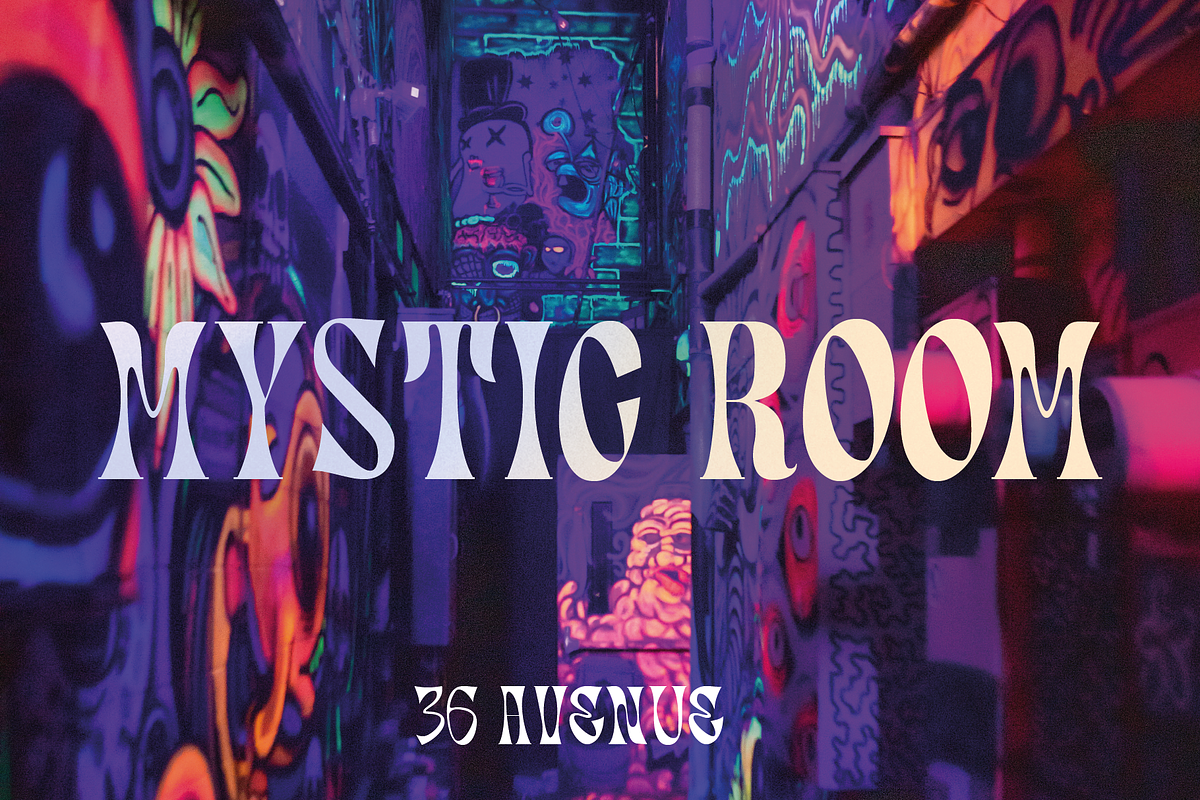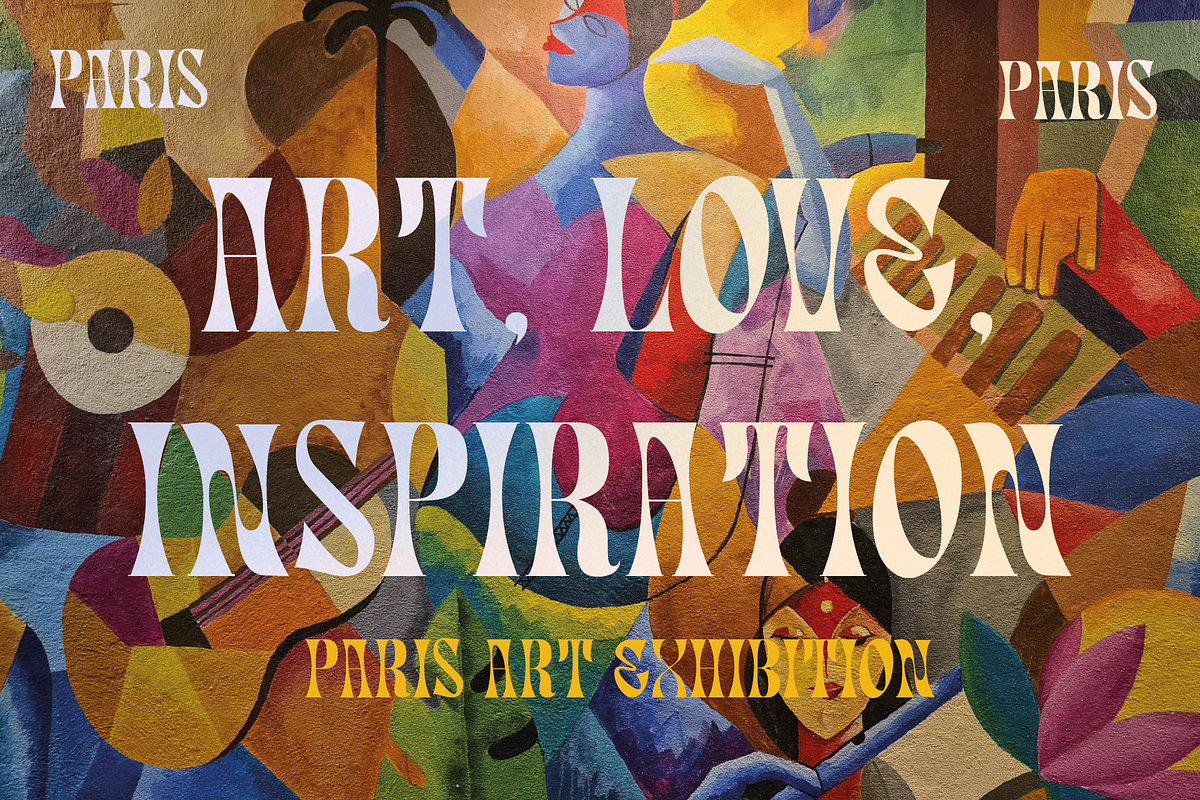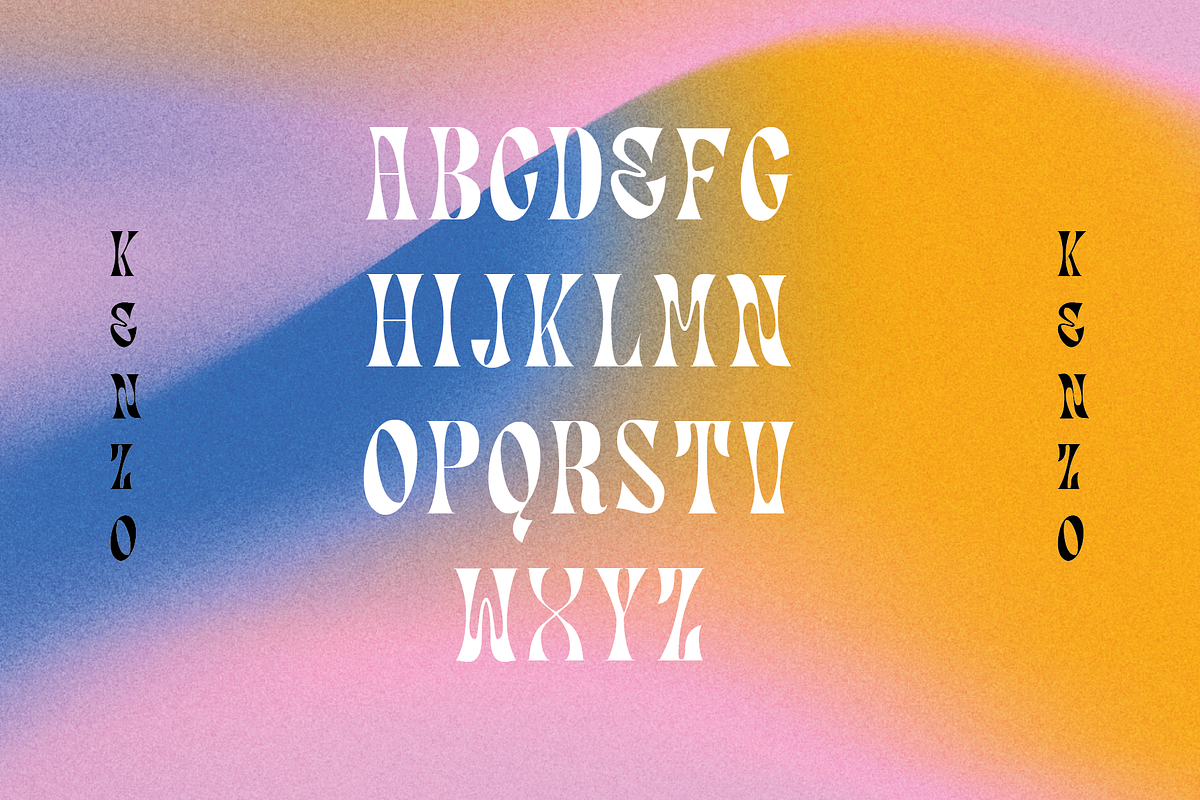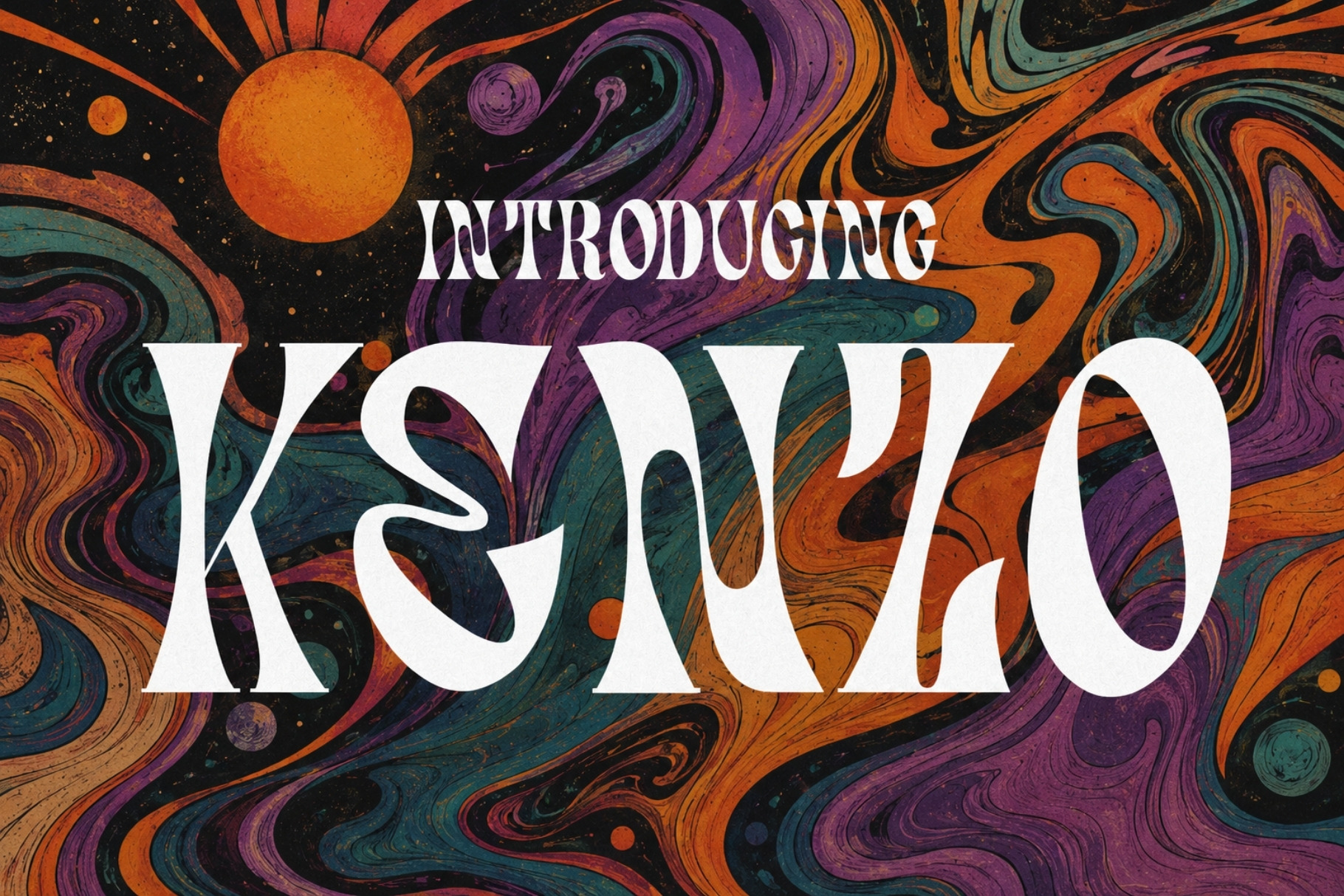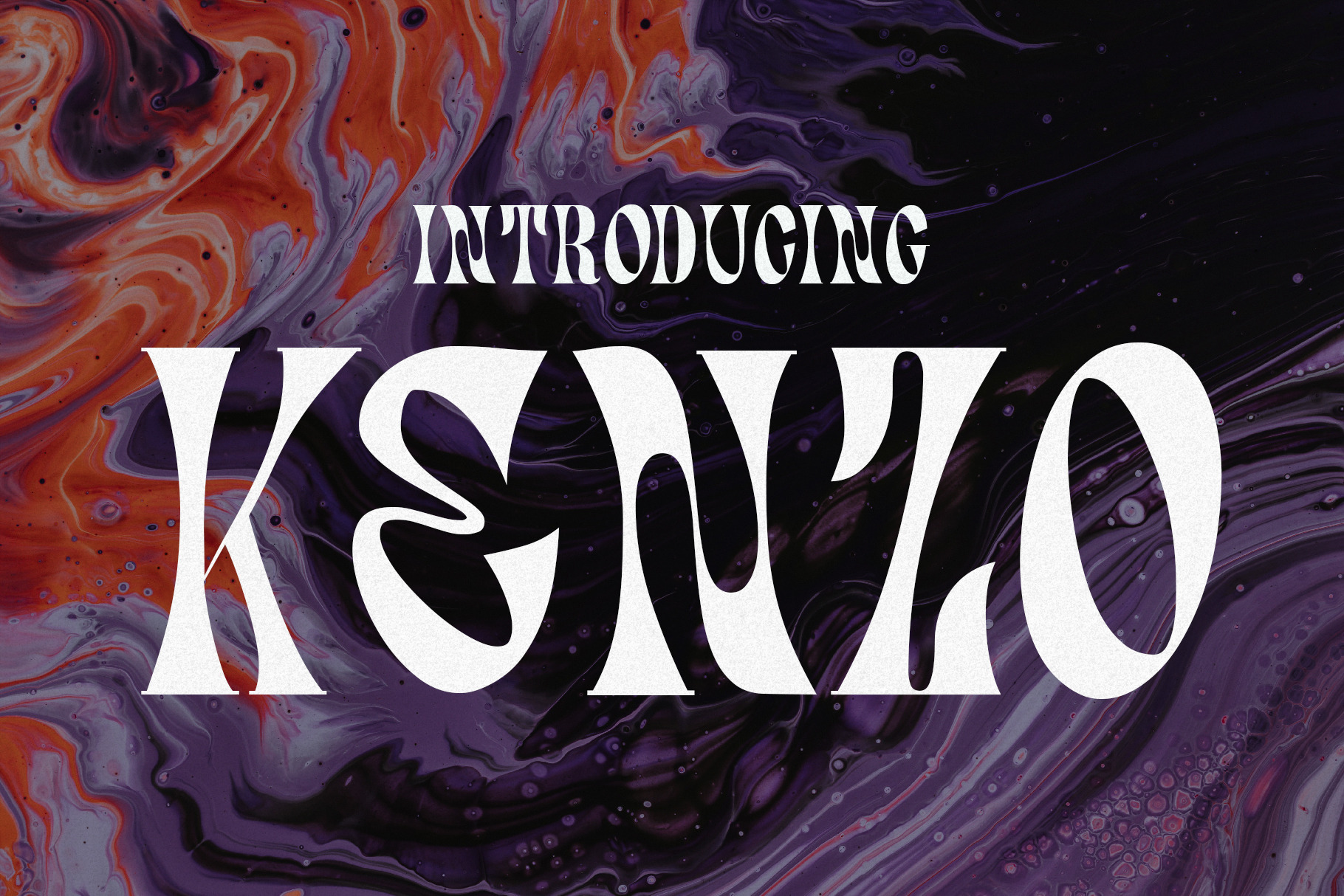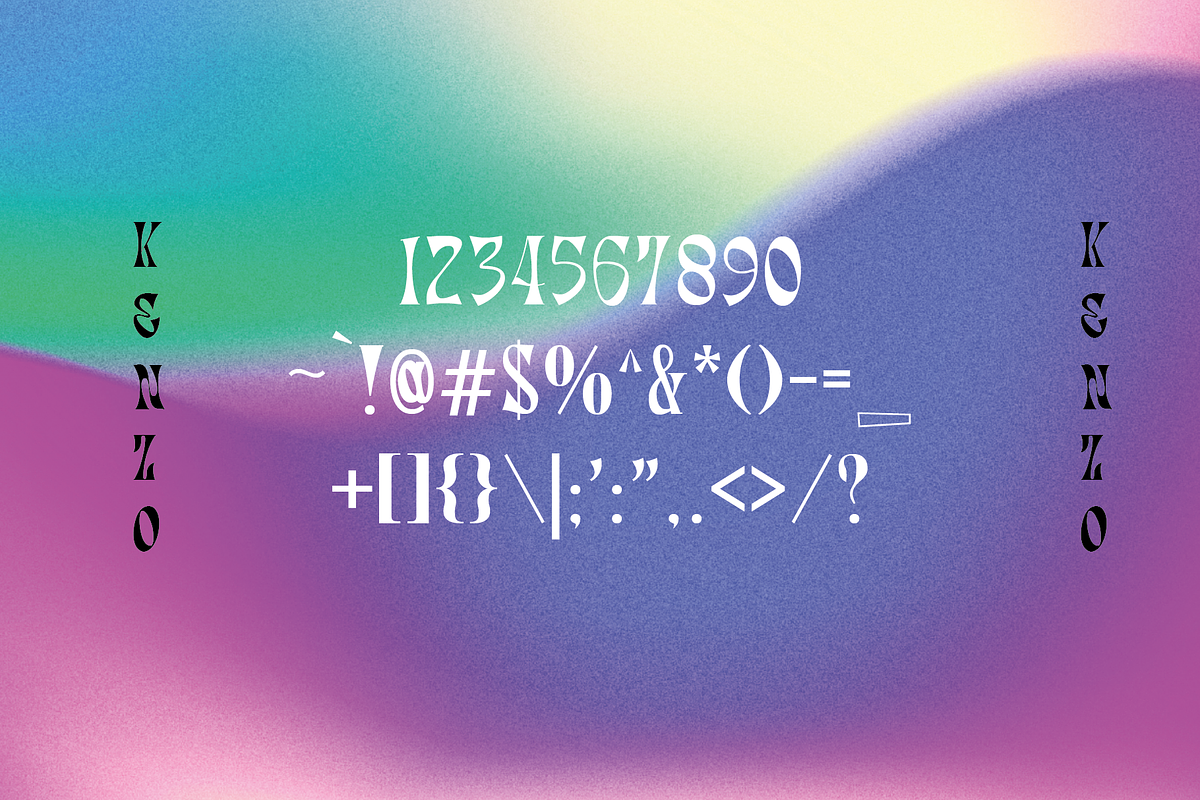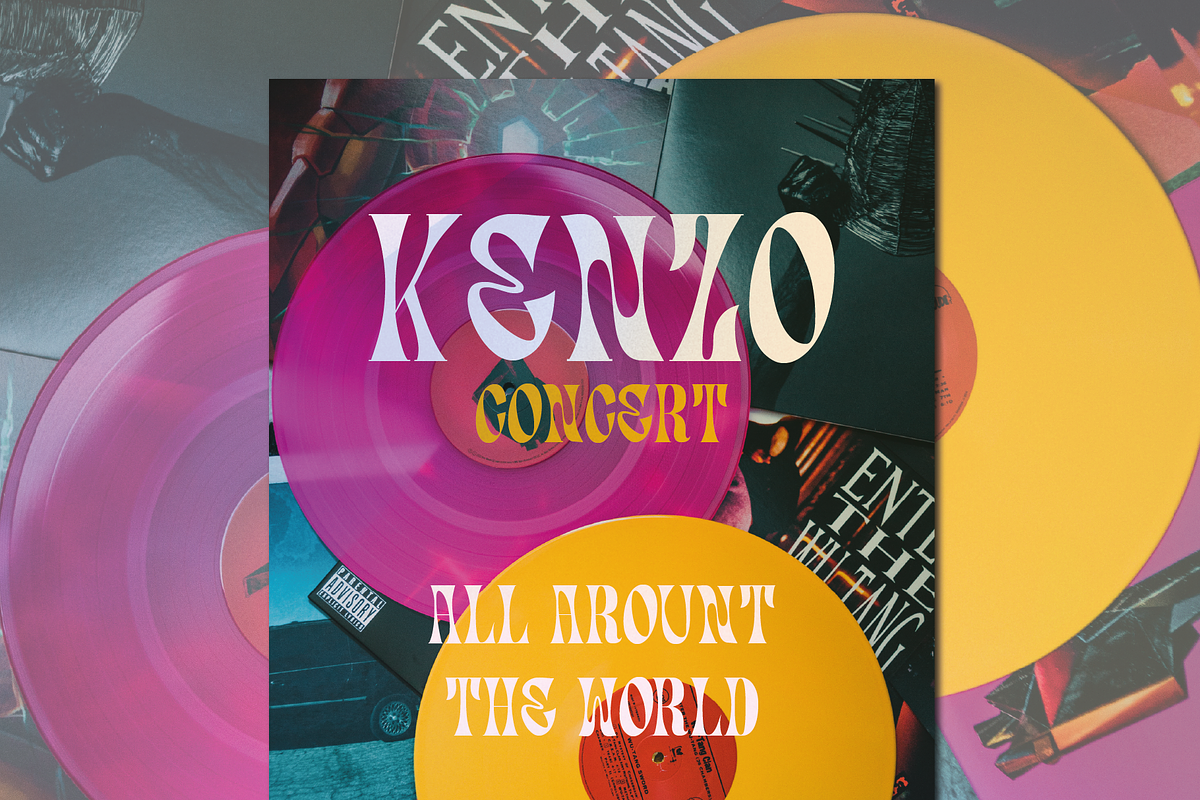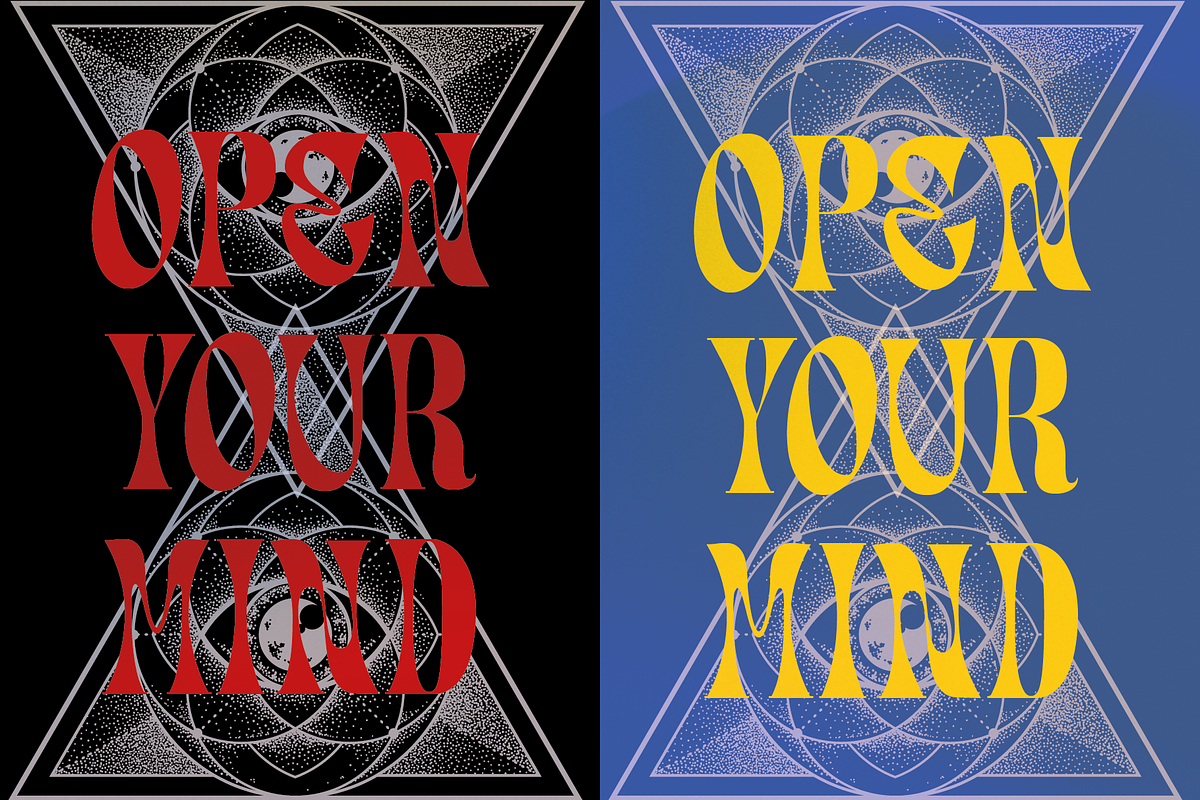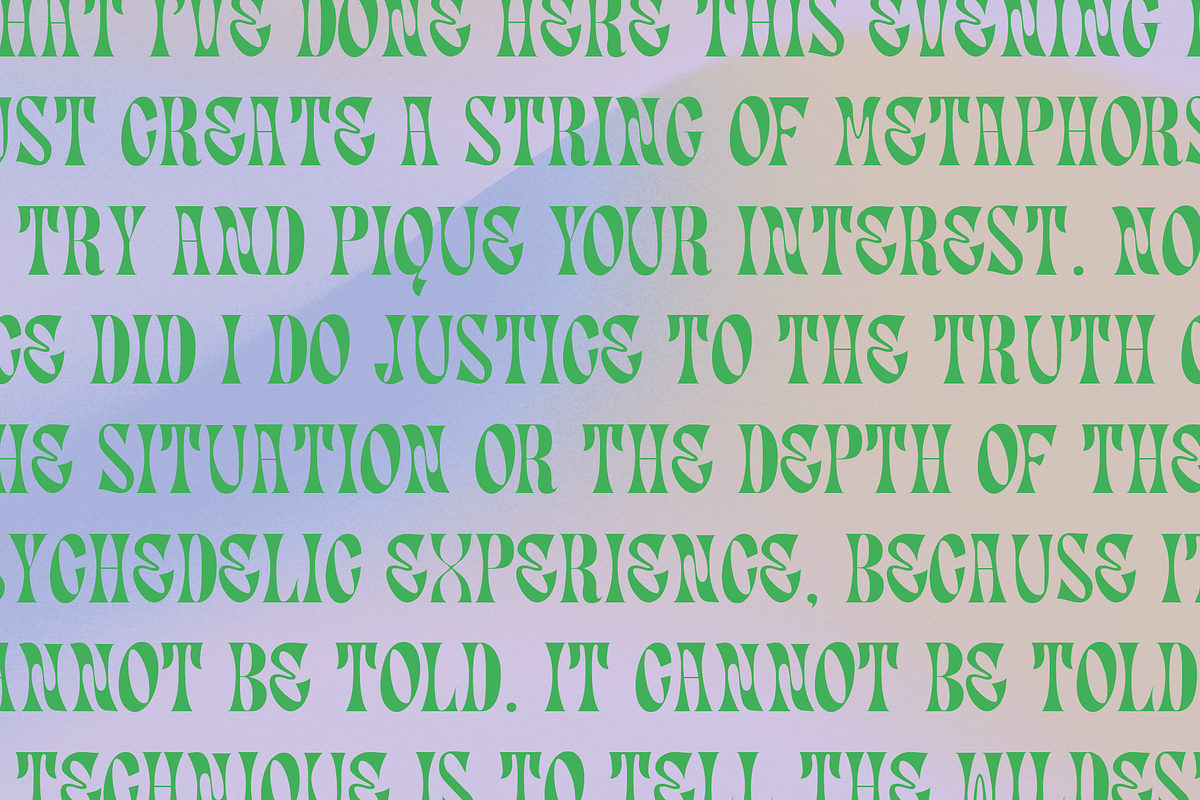
Kenzo - Psychedelic Typeface
Kenzo is a free-spirited psychedelic display typeface that pulls you straight into the kaleidoscopic energy of the 1960s and 70s — all flowing forms, groovy rhythm, and unapologetic color-outside-the-lines attitude. Its distinctive letterforms feel like they were drawn at the height of the counterculture movement, where rules were optional and self-expression was everything.
Built for projects that want to channel that same liberated, anything-goes spirit, Kenzo is a natural fit for band posters, festival graphics, vintage-inspired branding, packaging, magazine covers, and social media content that stops the scroll with pure visual personality. There's nothing corporate about it — and that's exactly the point.
For designers looking to tap into the warmth, wonder, and wild creativity of the peace-and-love era, Kenzo delivers that rare authenticity that can't be faked — just felt.